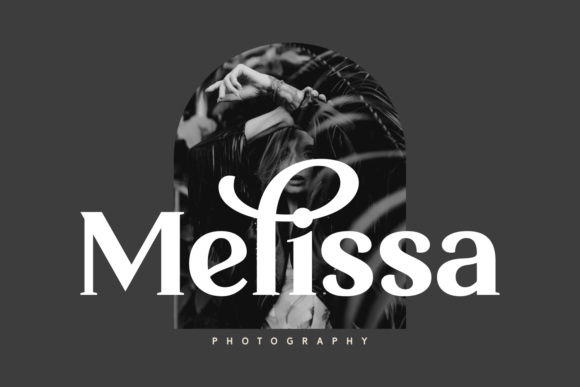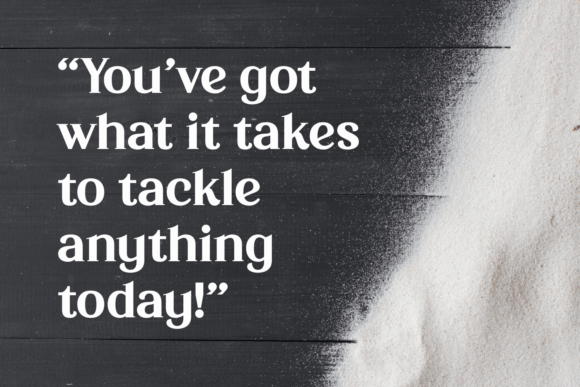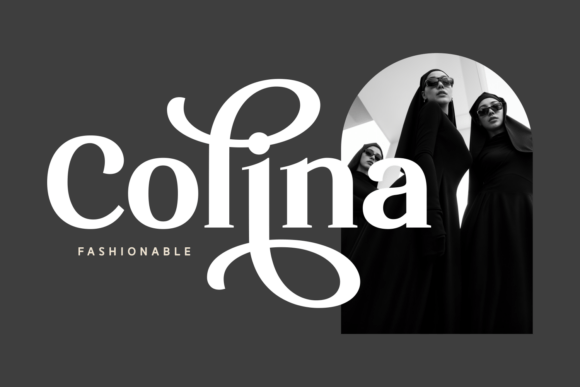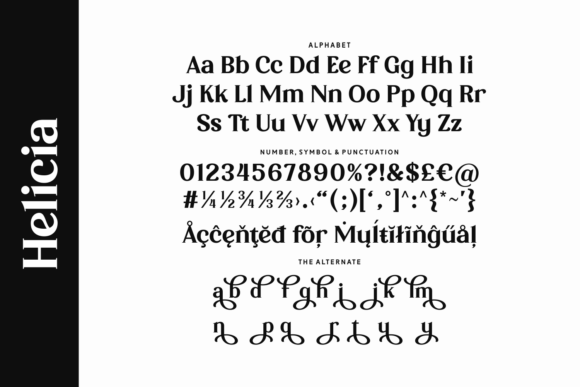
Introducing Helicia Font: Elevate Your Designs with Elegance and Sophistication
In the world of typography, a well-crafted font can make all the difference in elevating your designs to new heights. Meet Helicia Font, a bold modern serif typeface that seamlessly blends classic elegance with striking decorative swashes. This stunning font is perfect for designers and crafters looking to add a touch of luxury and sophistication to their projects.
The Perfect Balance of Elegance and Creativity
Helicia Font boasts a refined and strong structure, making it an ideal choice for a wide range of applications, from luxury branding and editorial headlines to fashion design and sophisticated packaging. Its unique personality shines through in its stylish ligatures, decorative swashes, and elegant curves. Whether you’re looking to create a bold statement or add a touch of subtle sophistication, Helicia Font has got you covered.
Key Features of Helicia Font
• Bold Modern Serif Typeface: Helicia Font features a bold and modern serif design that exudes confidence and sophistication.
• Classic Elegance: The font’s classic elegance makes it perfect for luxury branding, editorial headlines, and high-end packaging.
• Striking Decorative Swashes: Add a touch of drama and flair to your designs with Helicia’s striking decorative swashes.
• Refined Curves: The font’s refined curves and strong structure make it both elegant and legible.
• Stylish Ligatures: Helicia Font features stylish ligatures that add an extra touch of sophistication to your designs.
Helicia Font is a versatile typeface that can be used in a variety of contexts, including:
• Luxury Branding: Create a lasting impression with Helicia’s elegant and sophisticated design.
• Editorial Headlines: Add a touch of glamour and sophistication to your editorial headlines with Helicia Font.
• Fashion Design: Elevate your fashion designs with Helicia’s bold and stylish typeface.
• Sophisticated Packaging: Make your packaging stand out with Helicia’s unique and elegant design.
Why Choose Helicia Font?
• Unique Personality: Helicia Font has a unique personality that sets it apart from other typefaces.
• Elegance and Creativity: The font offers both elegance and creativity in one versatile package.